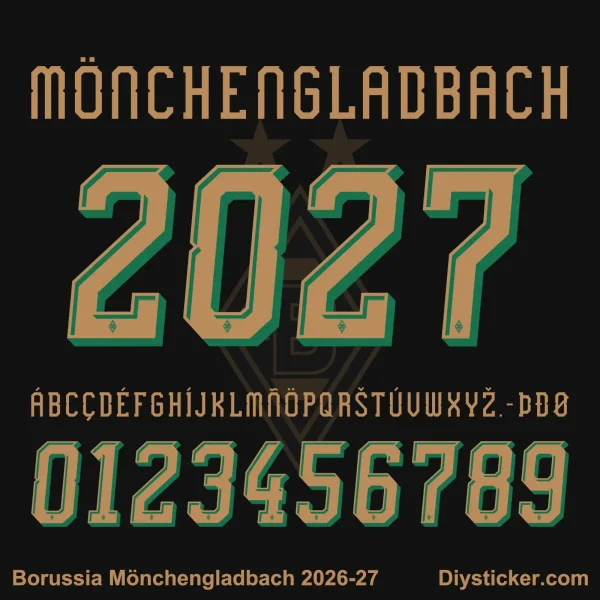
Upgrade Your Gear with the Borussia Monchengladbach 2026-2027 Font
Are you looking to restore a classic kit or create custom fan apparel? Our Borussia Monchengladbach 2026-2027 Font kit is the ultimate resource for designers and football enthusiasts. This high-precision typography set captures every detail of the upcoming season’s aesthetic, ensuring your projects look professional and authentic.
Why Choose Our 2026-2027 Font Kit?
The Borussia Mönchengladbach 2026-2027 Font is designed with specific attention to the unique 3D shadowing and inner-border details seen on the latest kits. If you are working on a 2026 World Cup themed project or a local club restoration, this font provides the precision needed for high-end results.